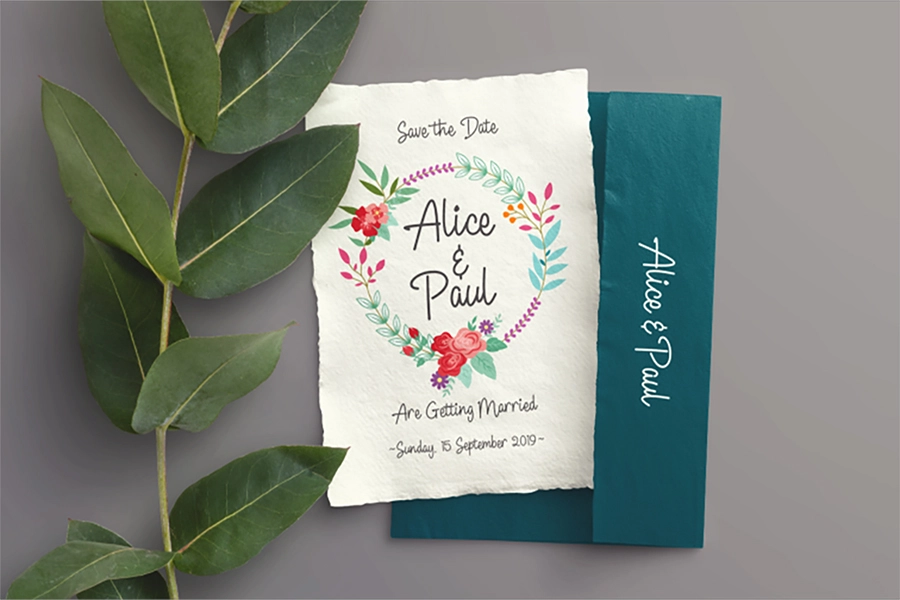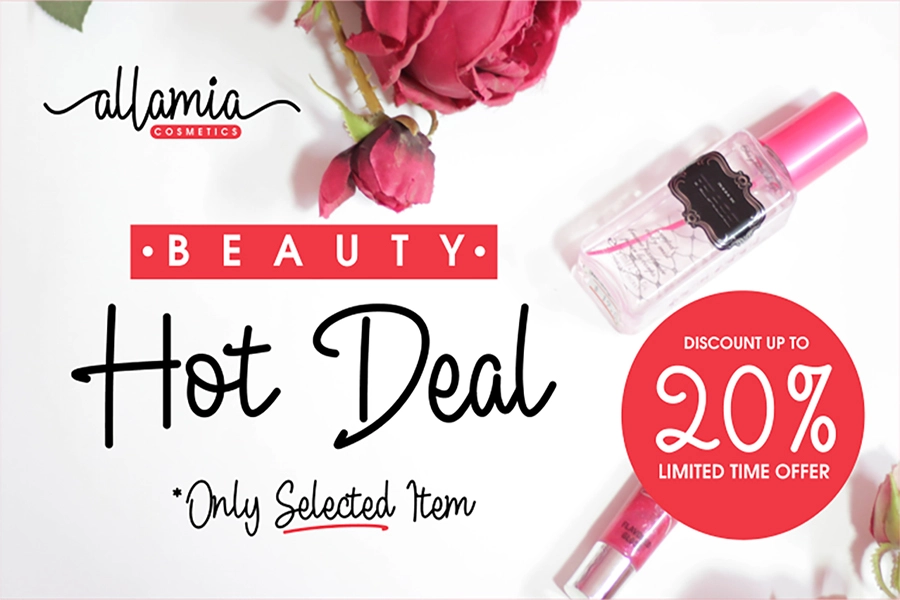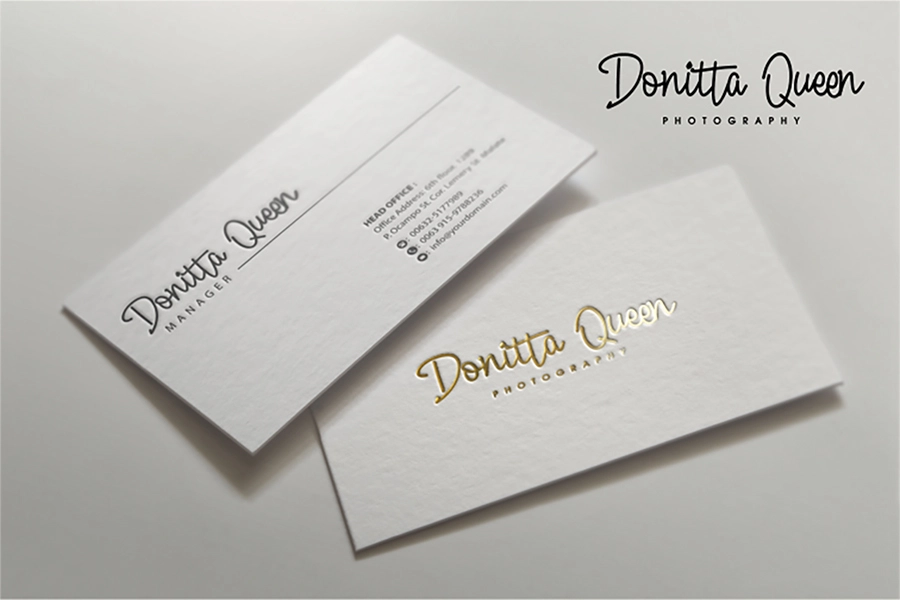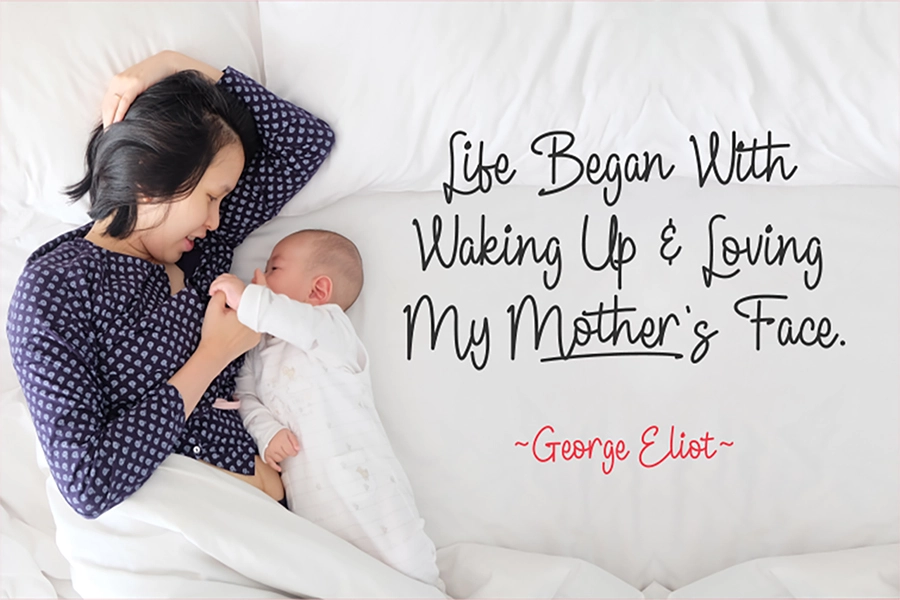
Allanis – Elegant Signature Font
Allanis is a classic and original handwritten font with a light feel. It will add a beautiful spark to any design project!